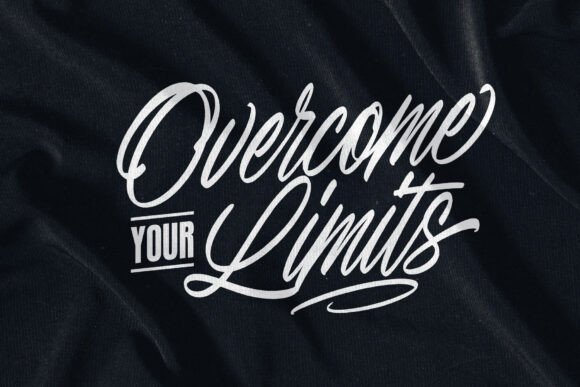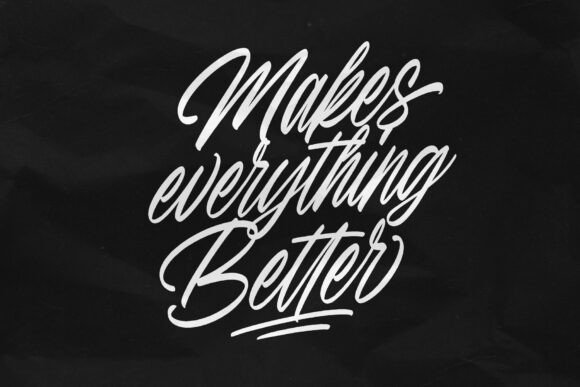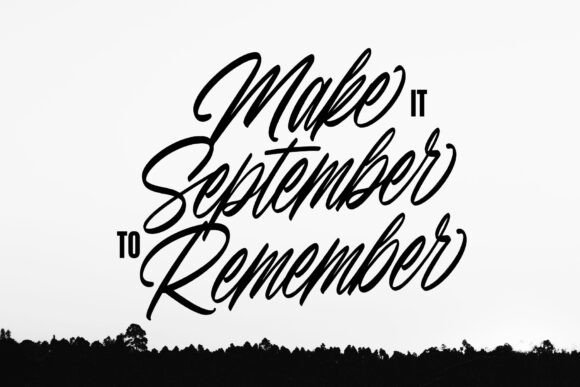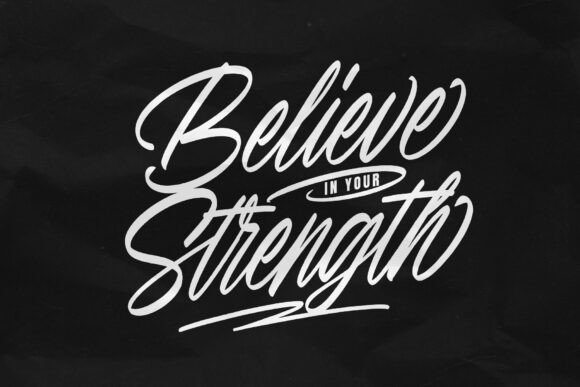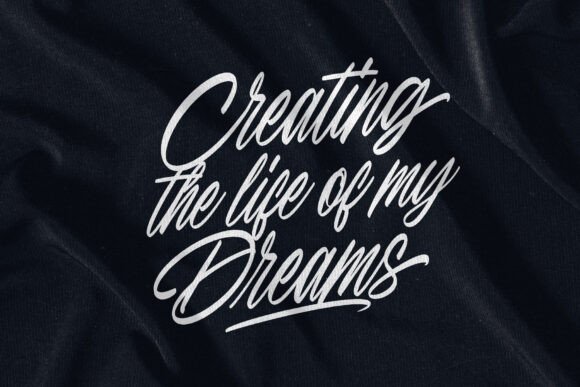
Introduction to Silver Stroke Font
Silver Stroke is a bold and dynamic handwriting brush script font that brings a sense of movement and creativity to your designs.
With its fluid, hand-painted strokes and expressive letterforms, this font captures the raw beauty of brush calligraphy Perfect for projects that demand attention and originality, Silver Stroke adds a striking yet personal touch to any creative work.
Key Features of Silver Stroke Font
Why Choose Silver Stroke Font?